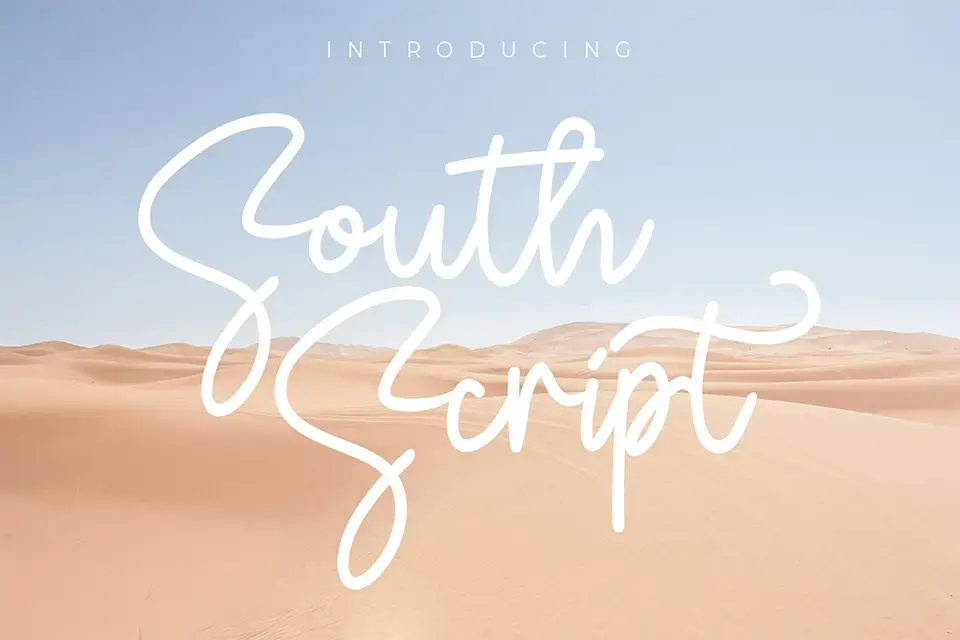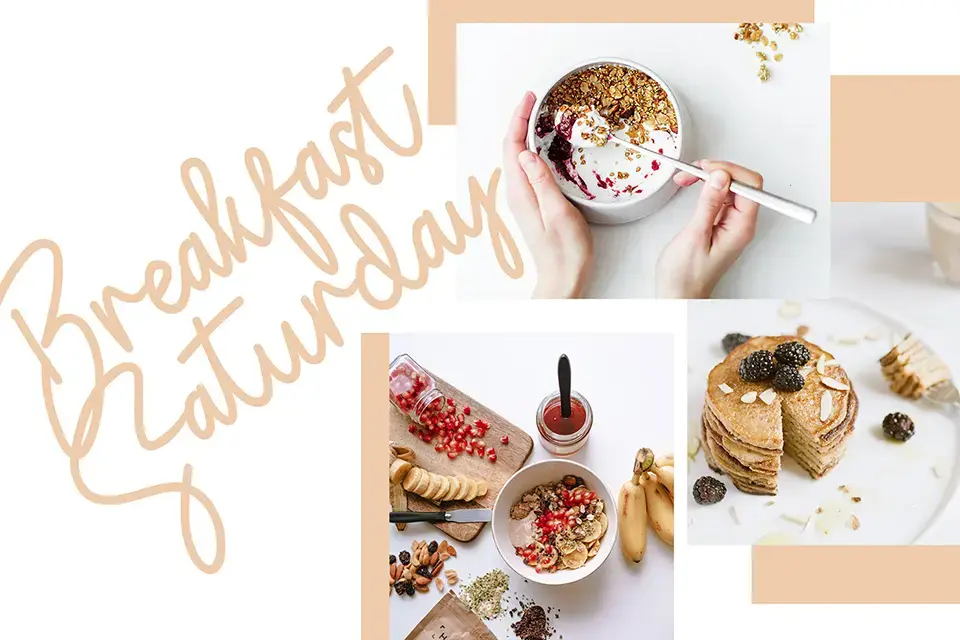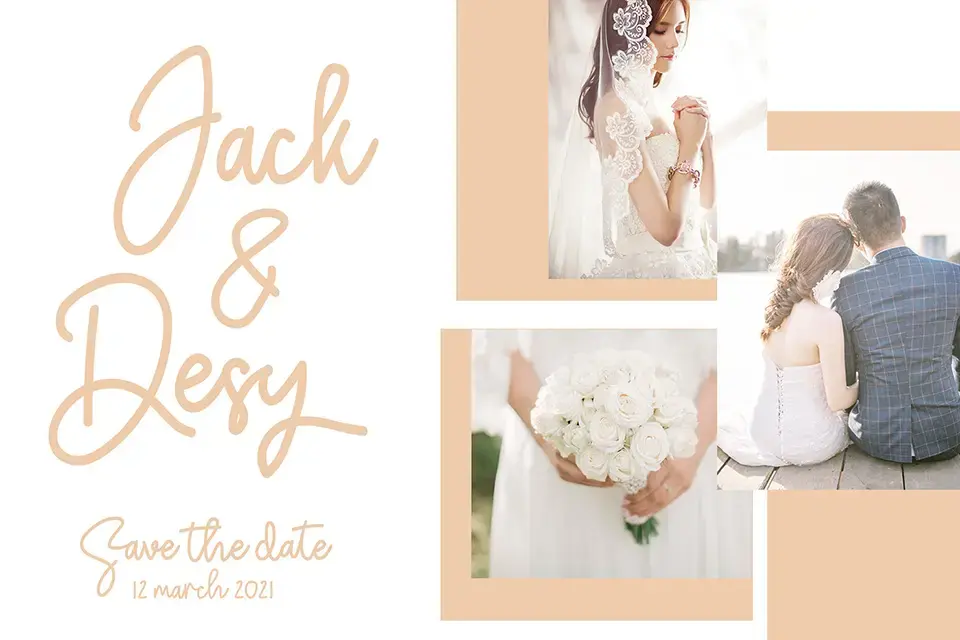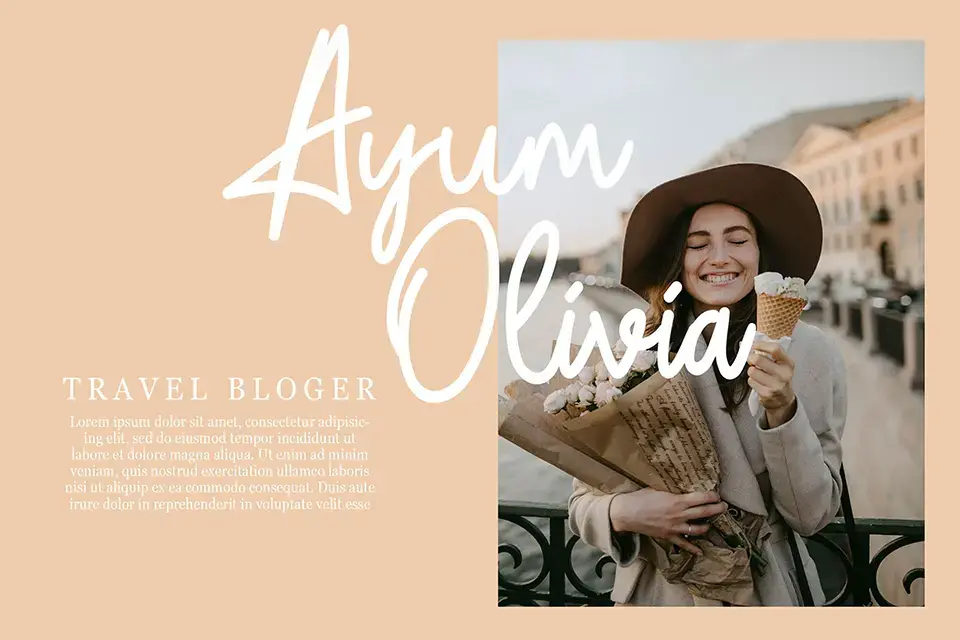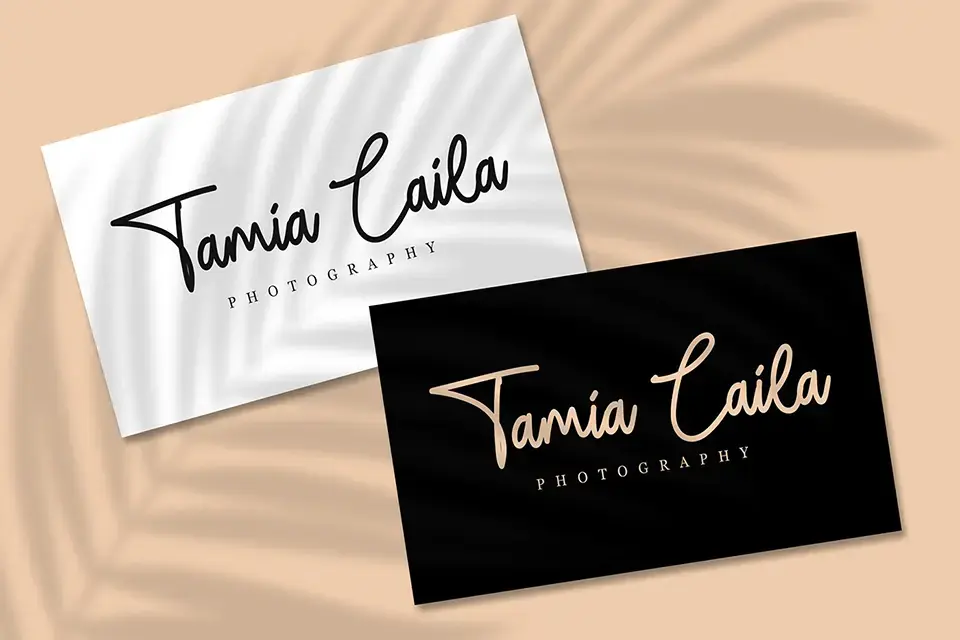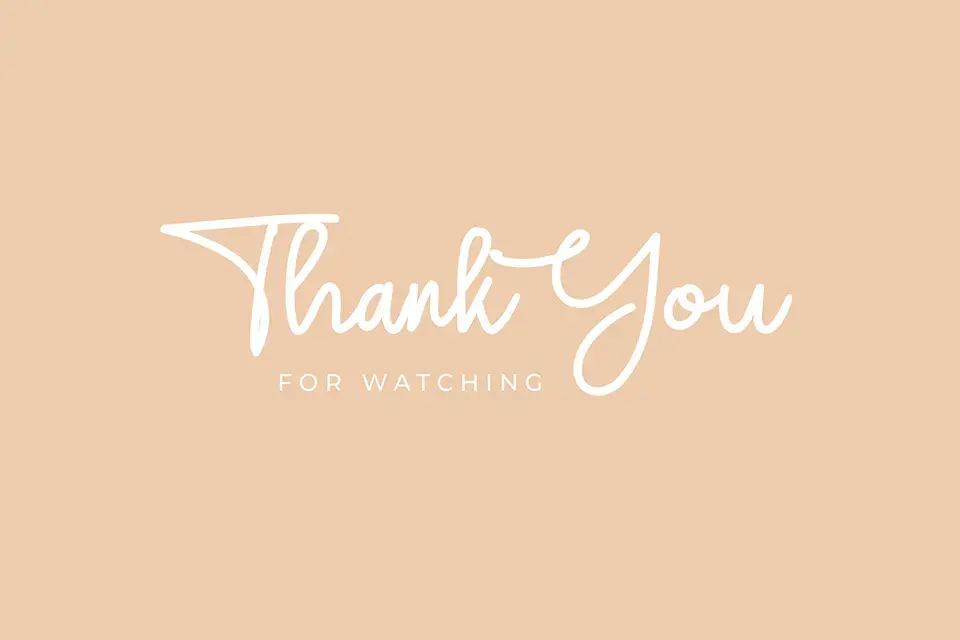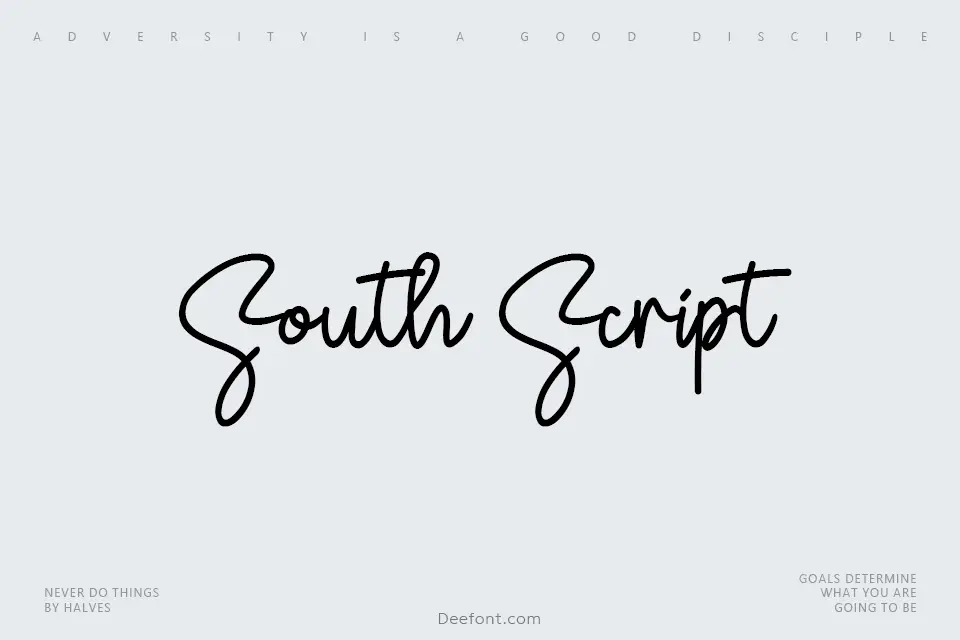
South Script Font
Elevate your designs with South Script, a stunning handwritten typeface by Letterday Studio. Featuring smooth curves and natural strokes, this script font adds an elegant yet personal touch to wedding invitations, logos, and social media branding. Its flowing signature style creates a warm, authentic vibe for modern creative projects.